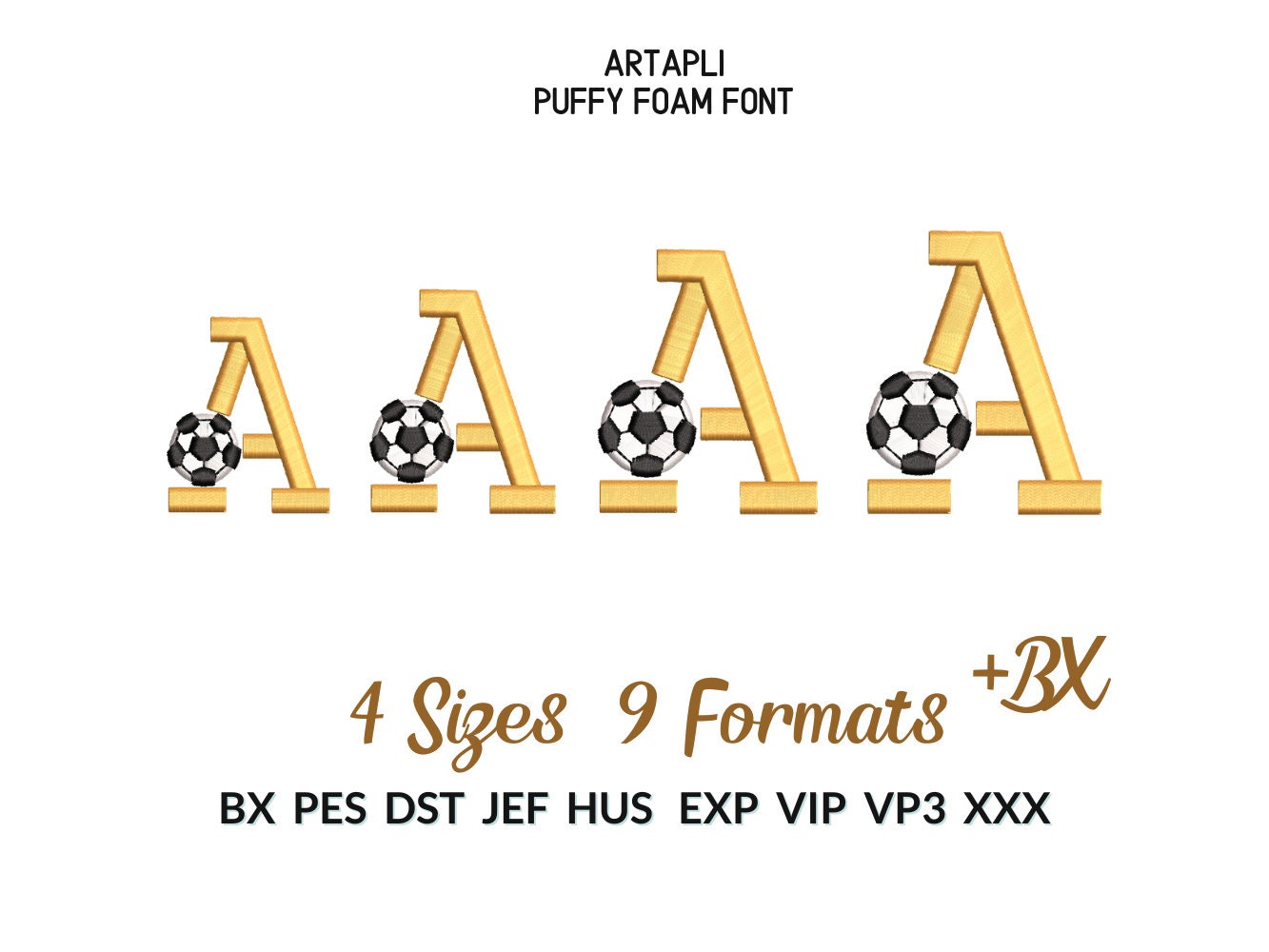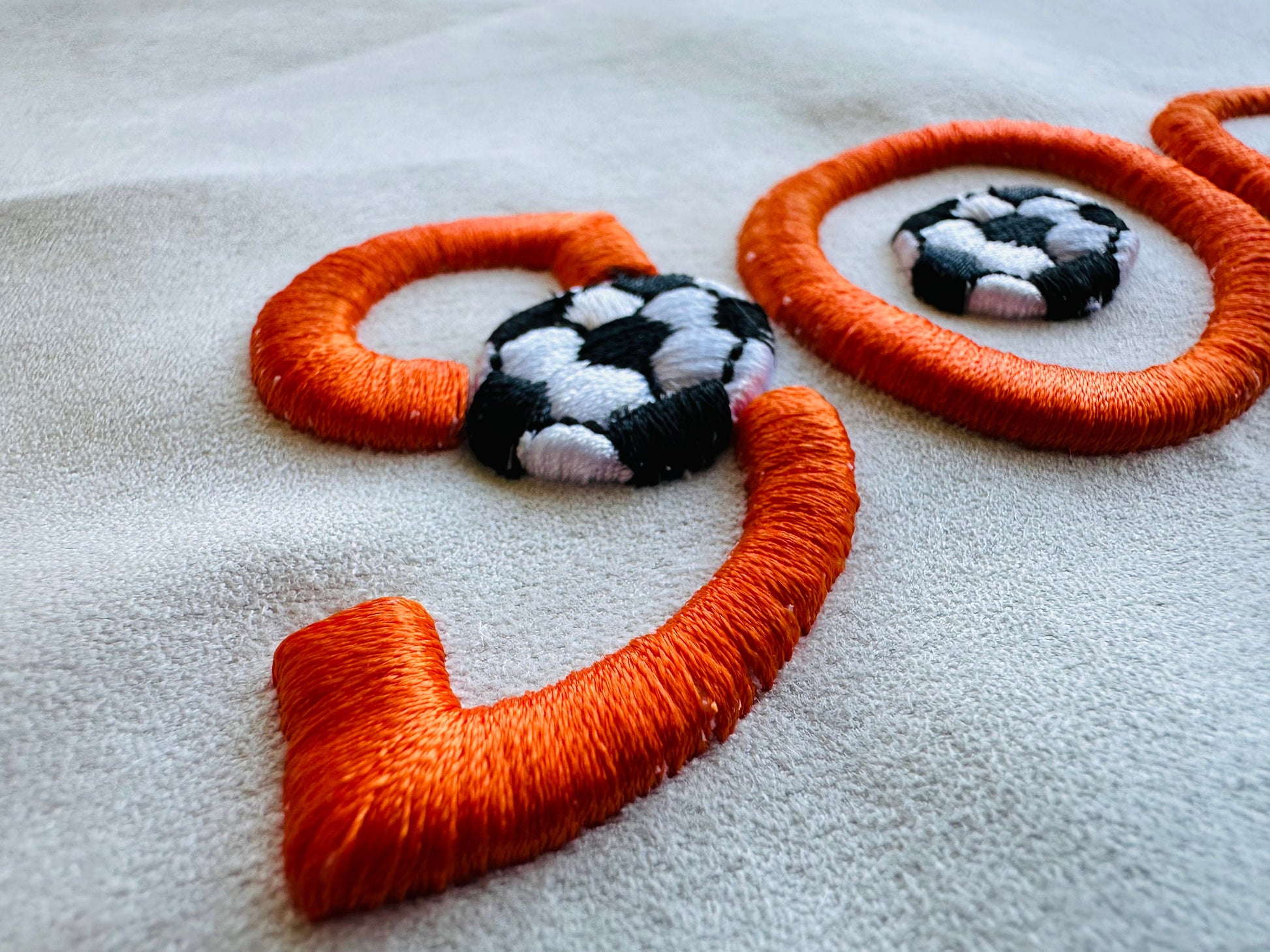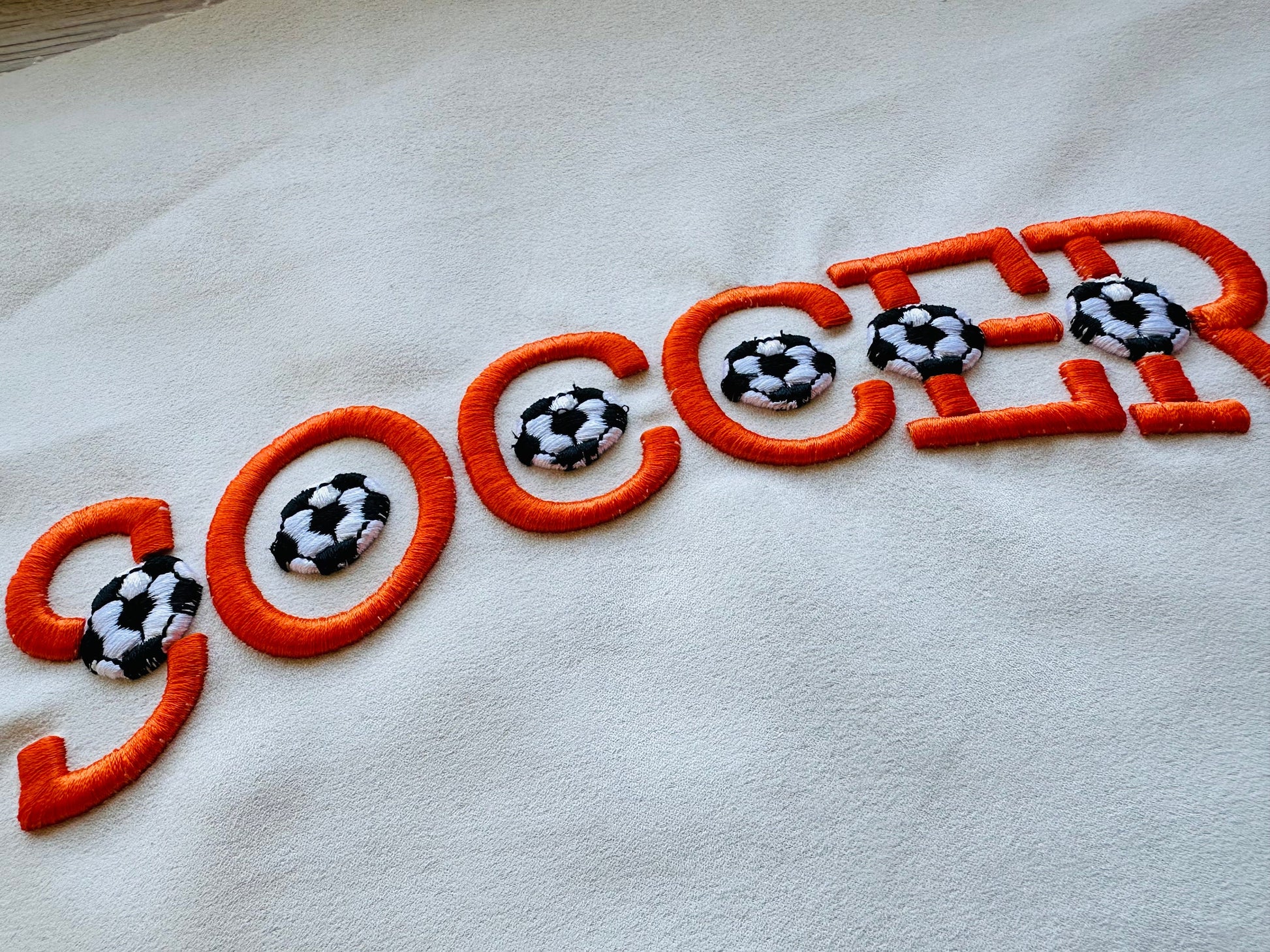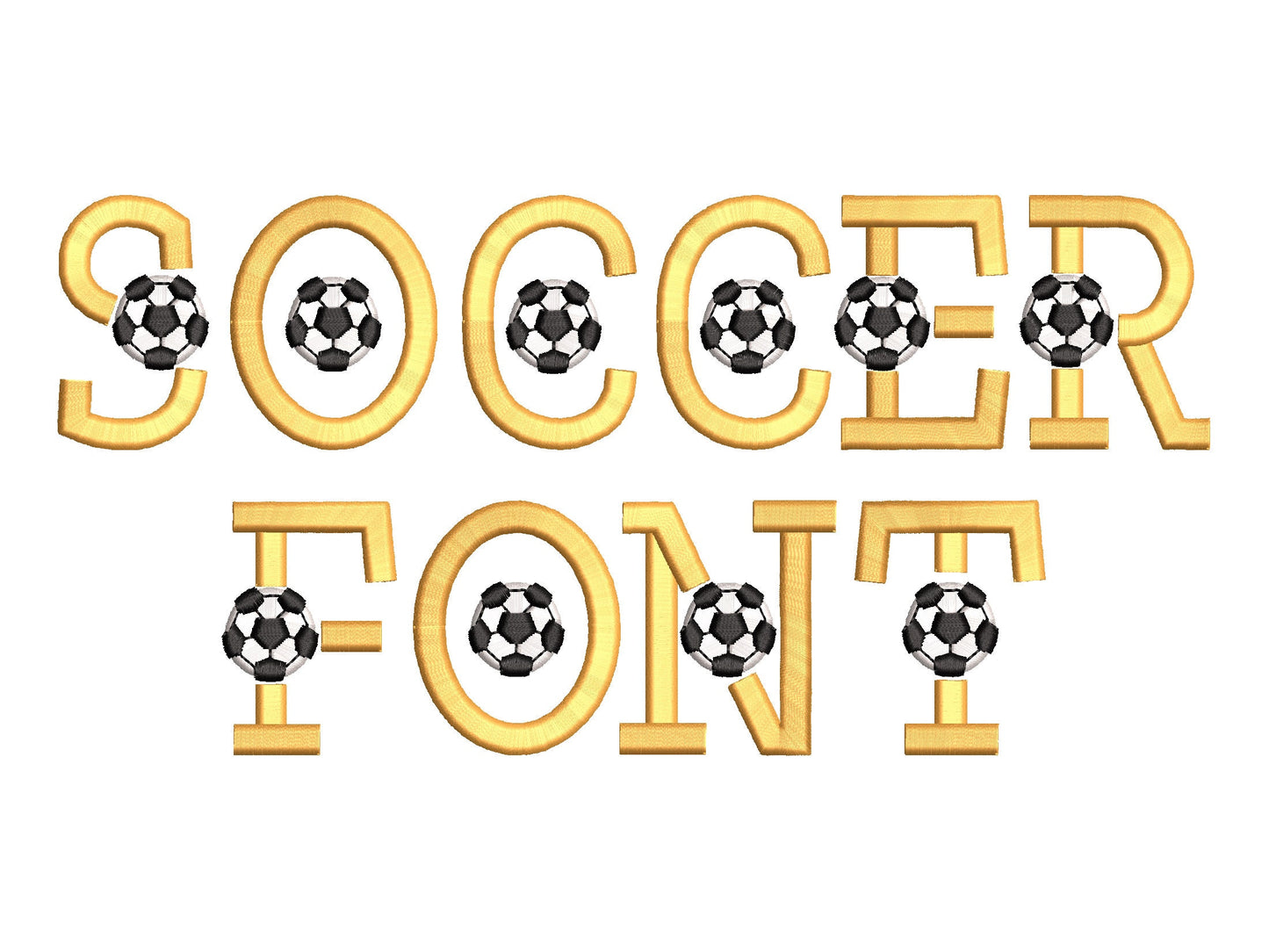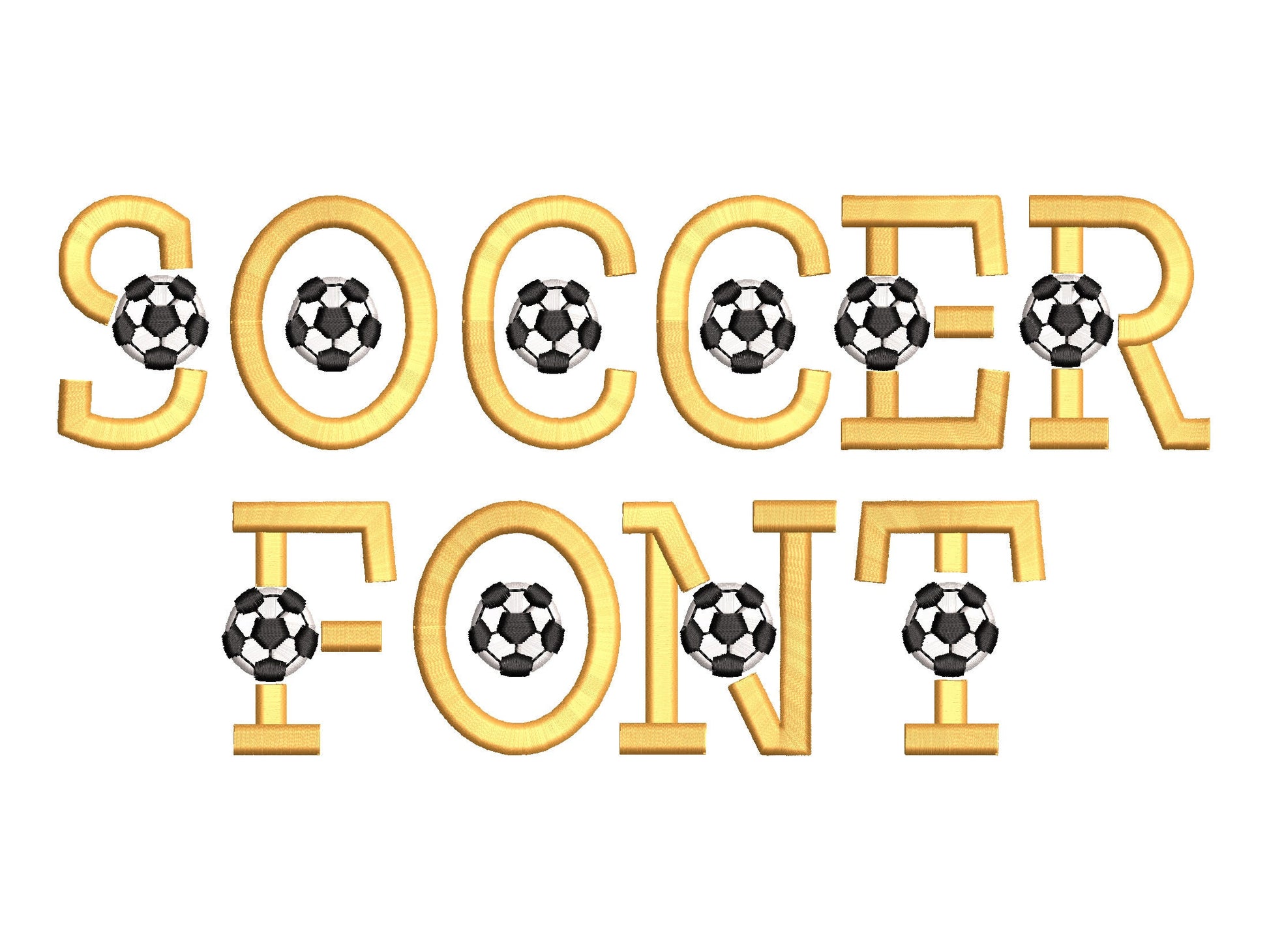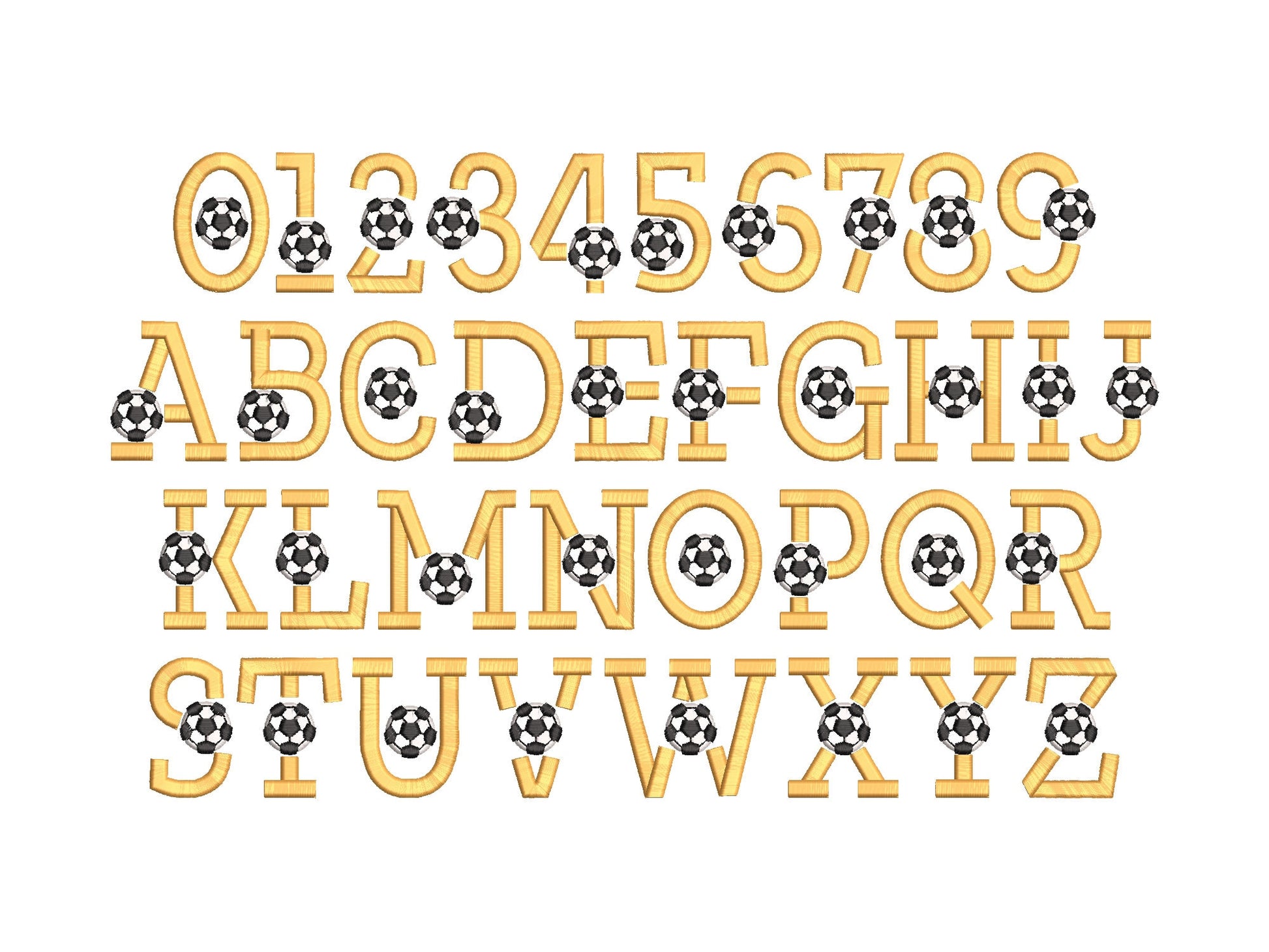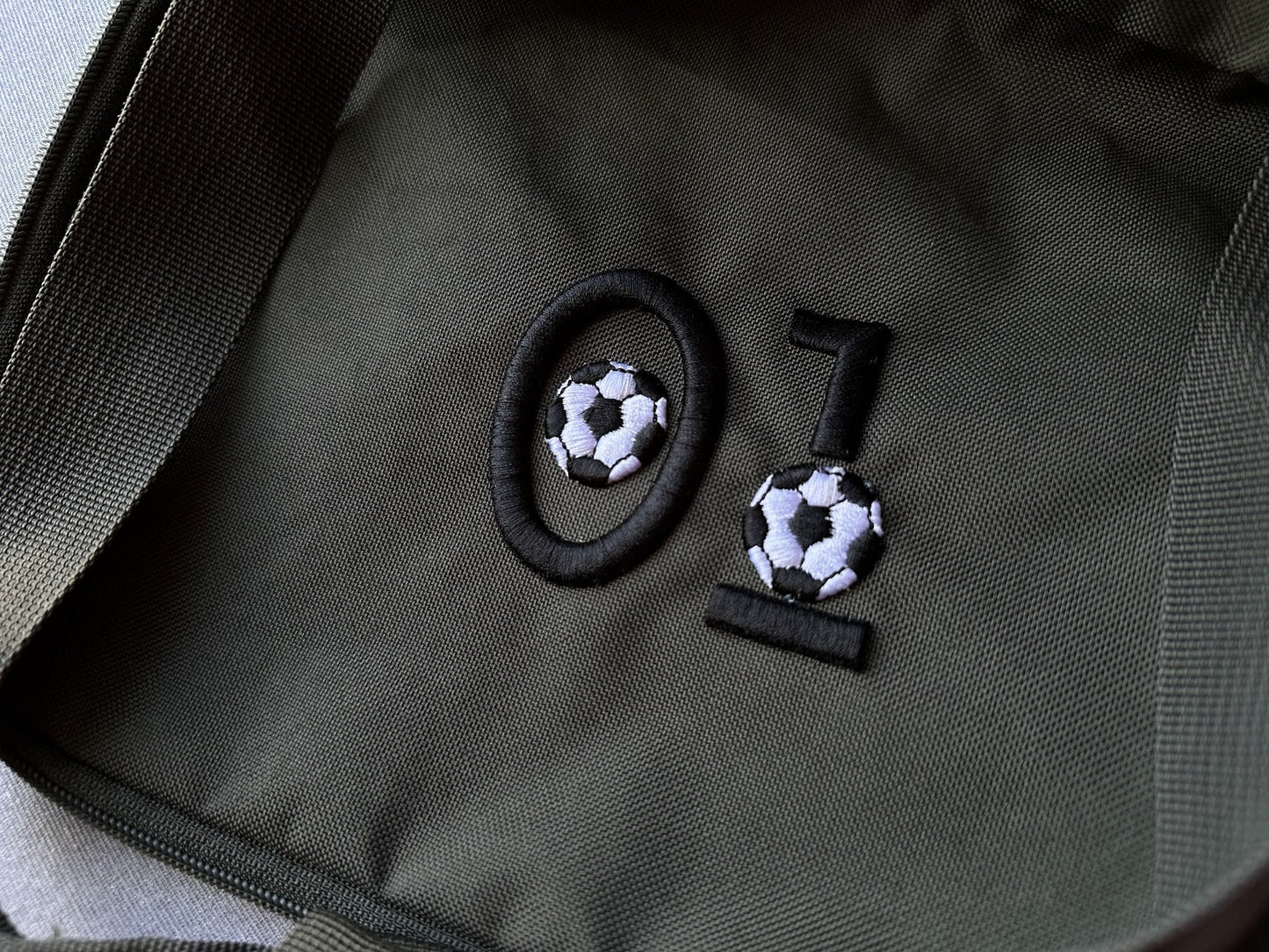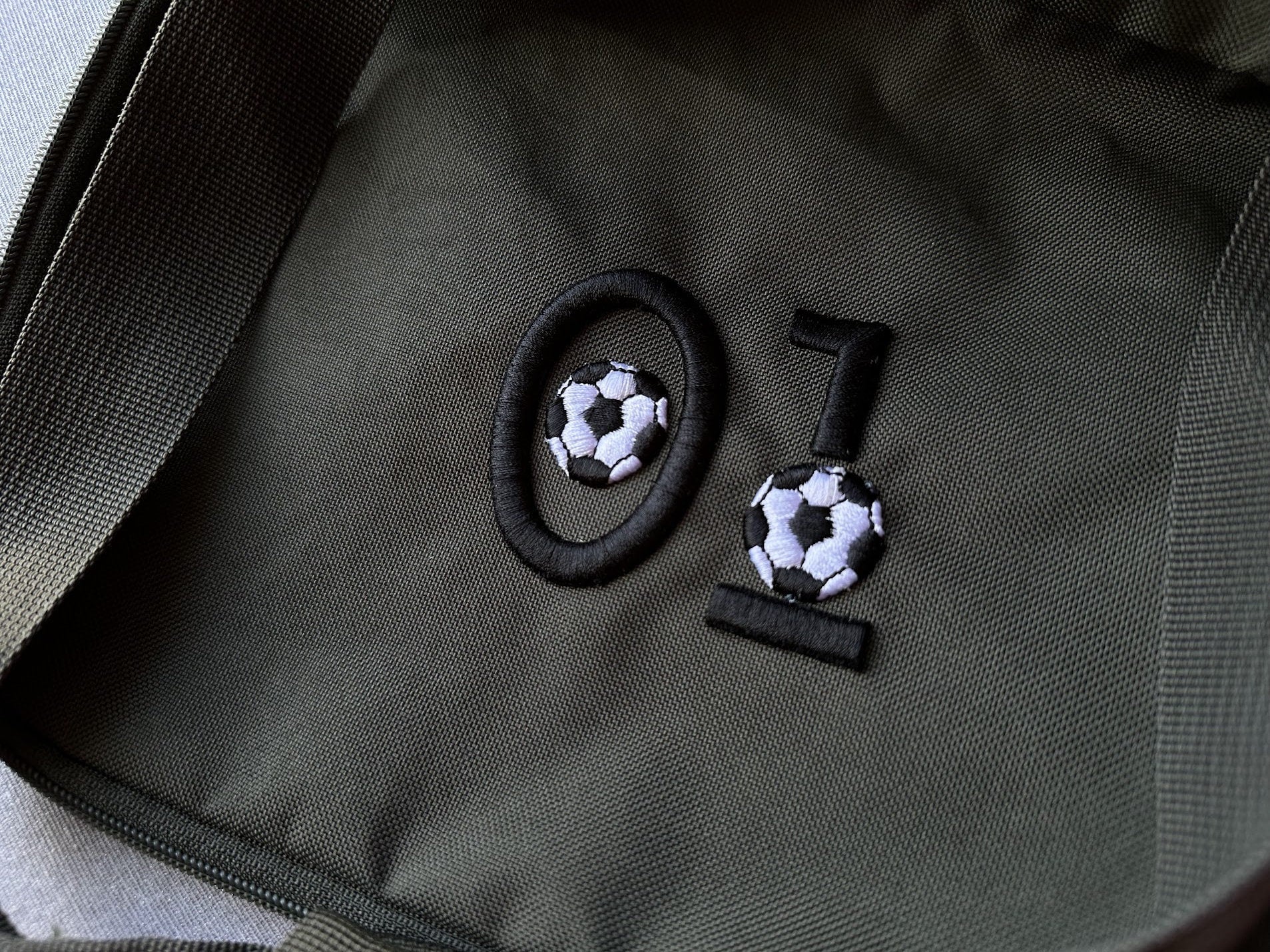
Puffy Foam Soccer Font
Or click to open the linkA soccer sport font in satin stitch over puffy foam for a raised 3D look. Great for boys' team shirts, caps and names.
Uppercase letters A to Z and numbers 0 to 9 in four sizes: 1.9, 2.2, 2.5 and 2.8 inches. You need 3 mm puffy foam.
- 3D puff soccer font
- Uppercase A-Z, numbers 0-9
- 4 sizes, 1.9 to 2.8 in